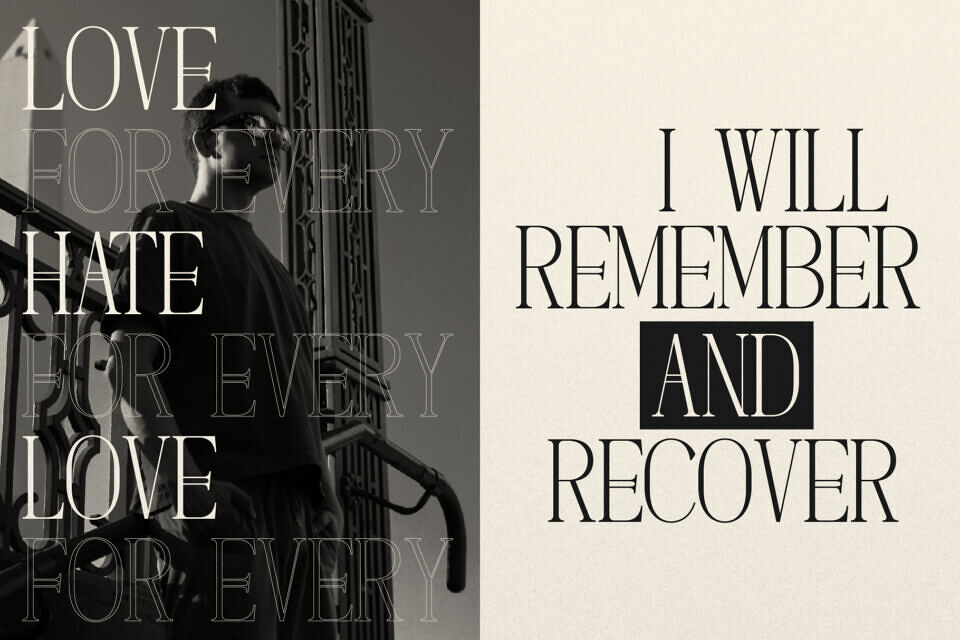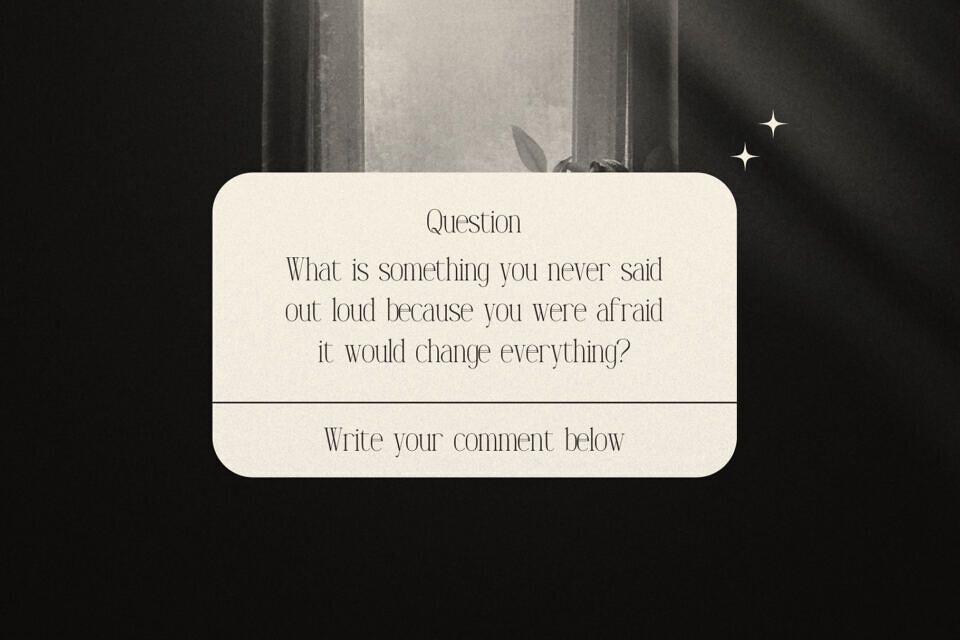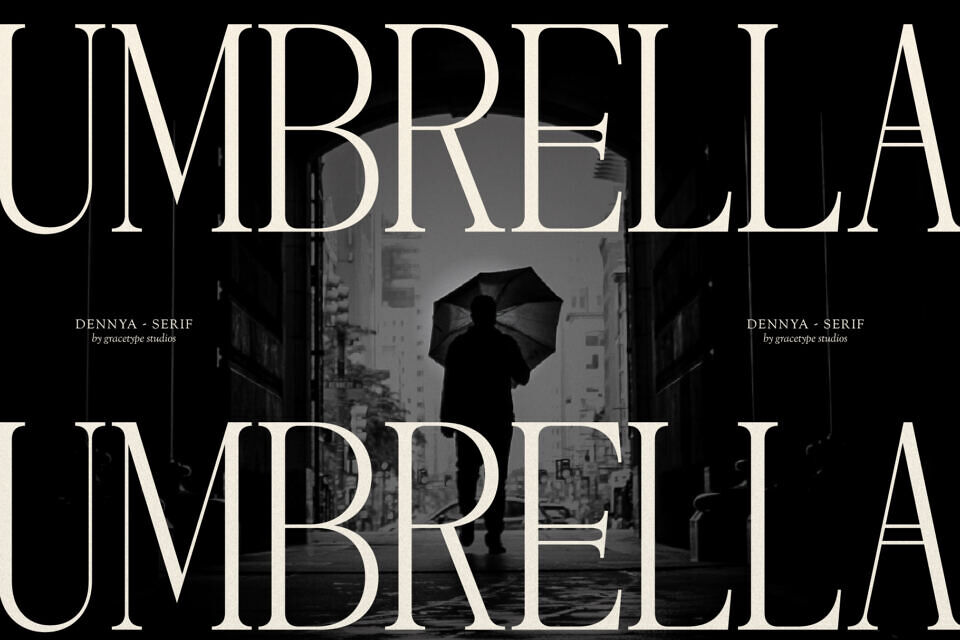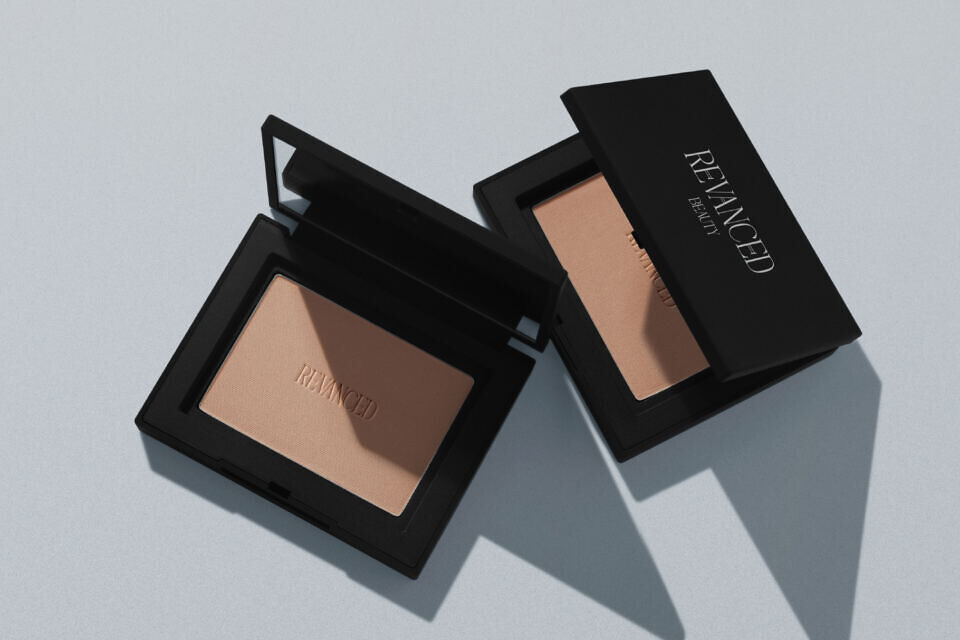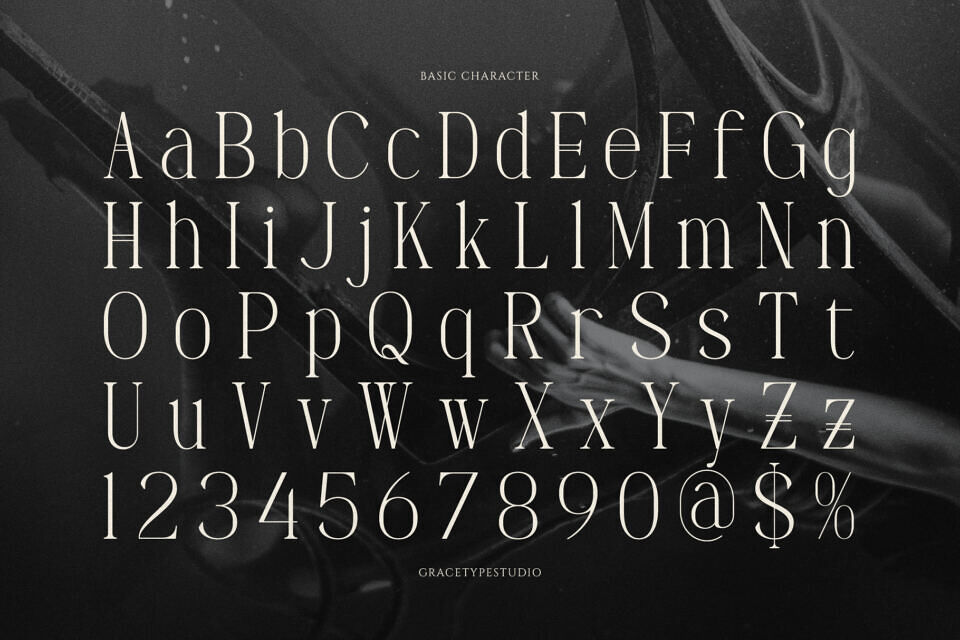
Dennya Font
Step into a realm of elite, high-contrast sophistication with Dennya, a breathtaking display serif font. Engineered for maximum editorial prestige, this modern typeface features razor-thin hairline crossbars paired with dramatic, extra-heavy vertical stems. To elevate its architectural grandeur, select characters are detailed with distinctive dual-line structural crossbars that instantly break standard typographic conventions.
Dennya acts as a bold, cinematic centerpiece that commands authority while retaining a deep poetic beauty. It is the ultimate strategic asset for high-fashion runway lookbooks, prominent editorial magazine covers, luxury real estate logos, avant-garde art exhibition posters, and boutique product branding.